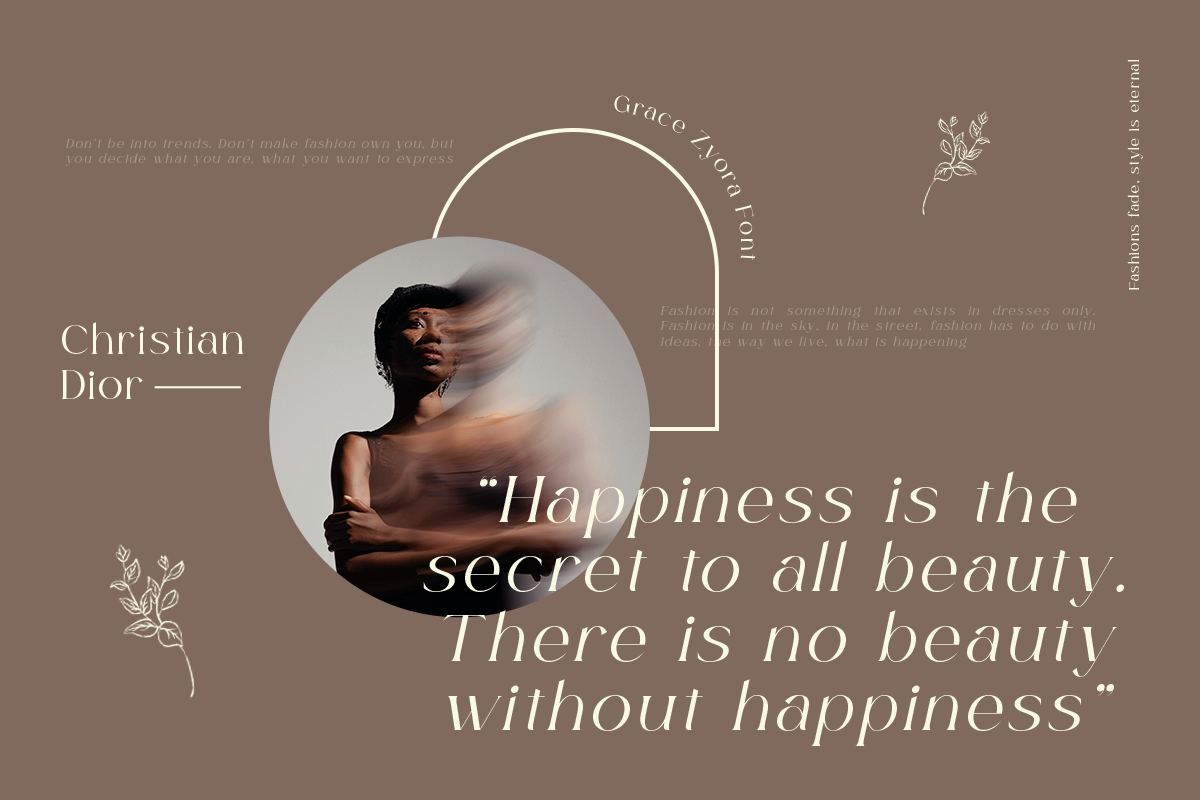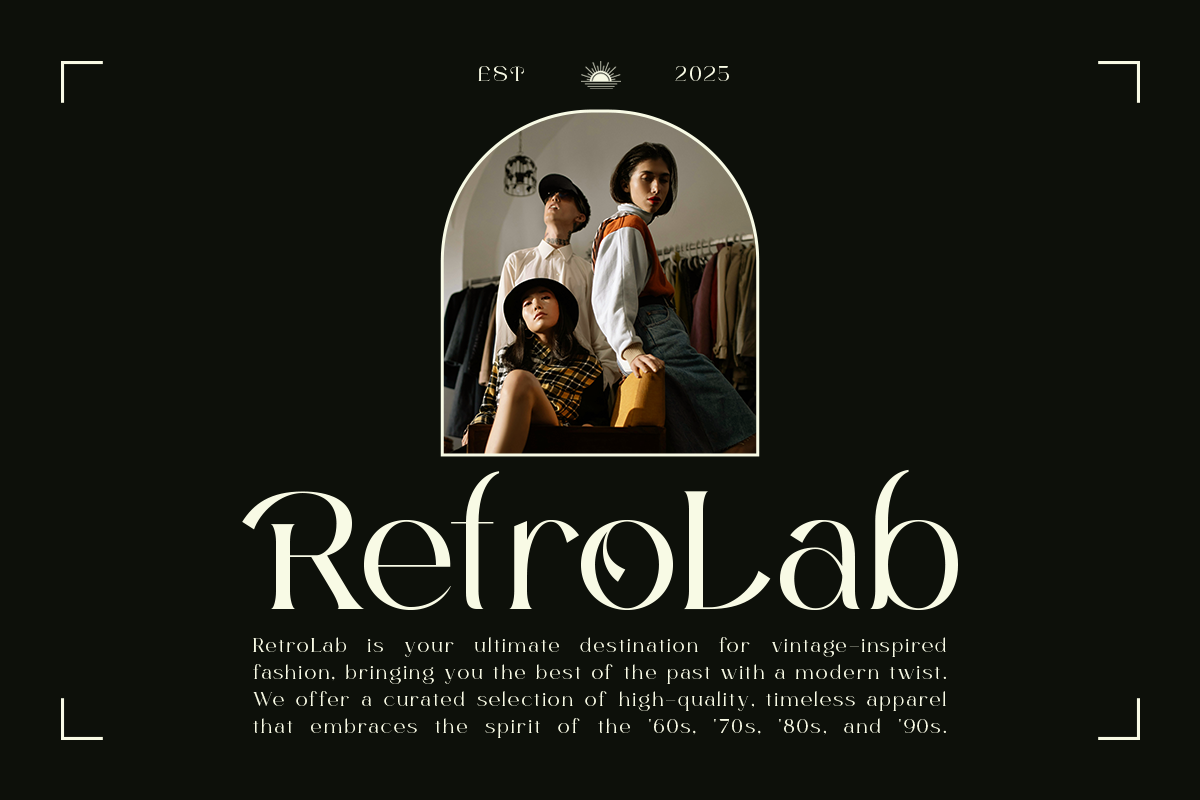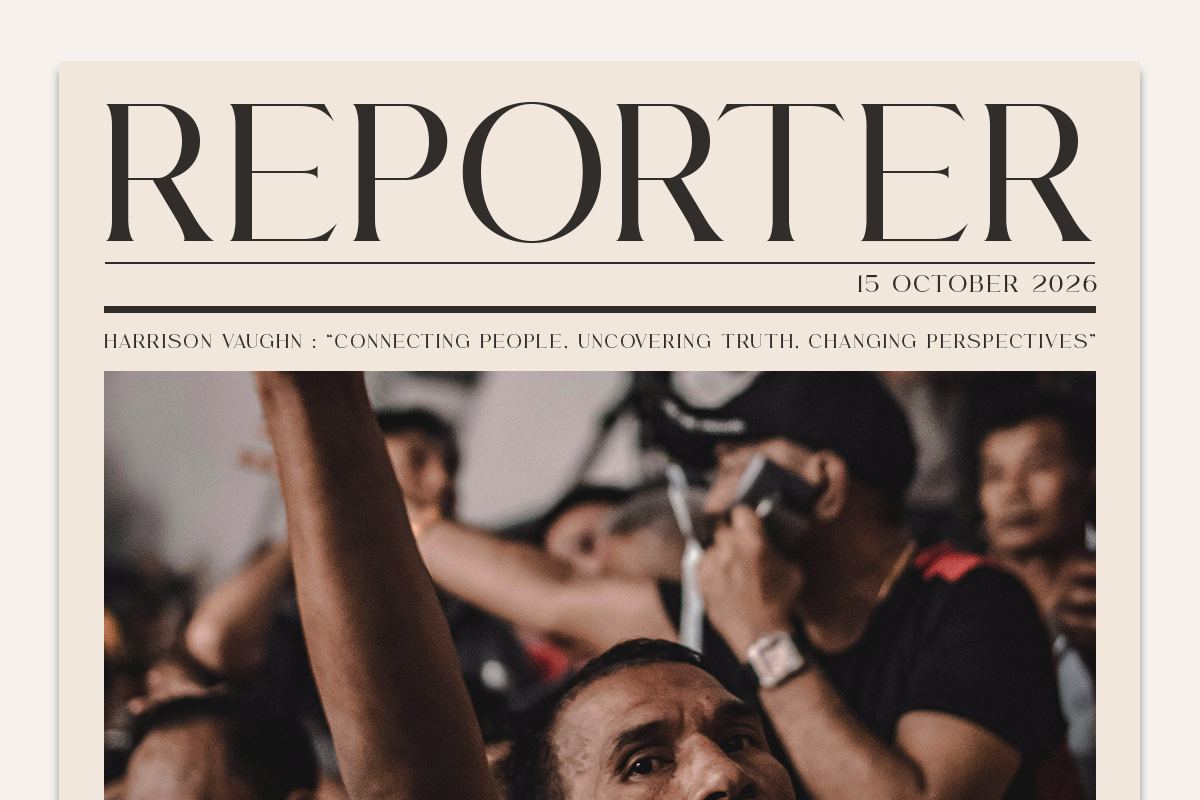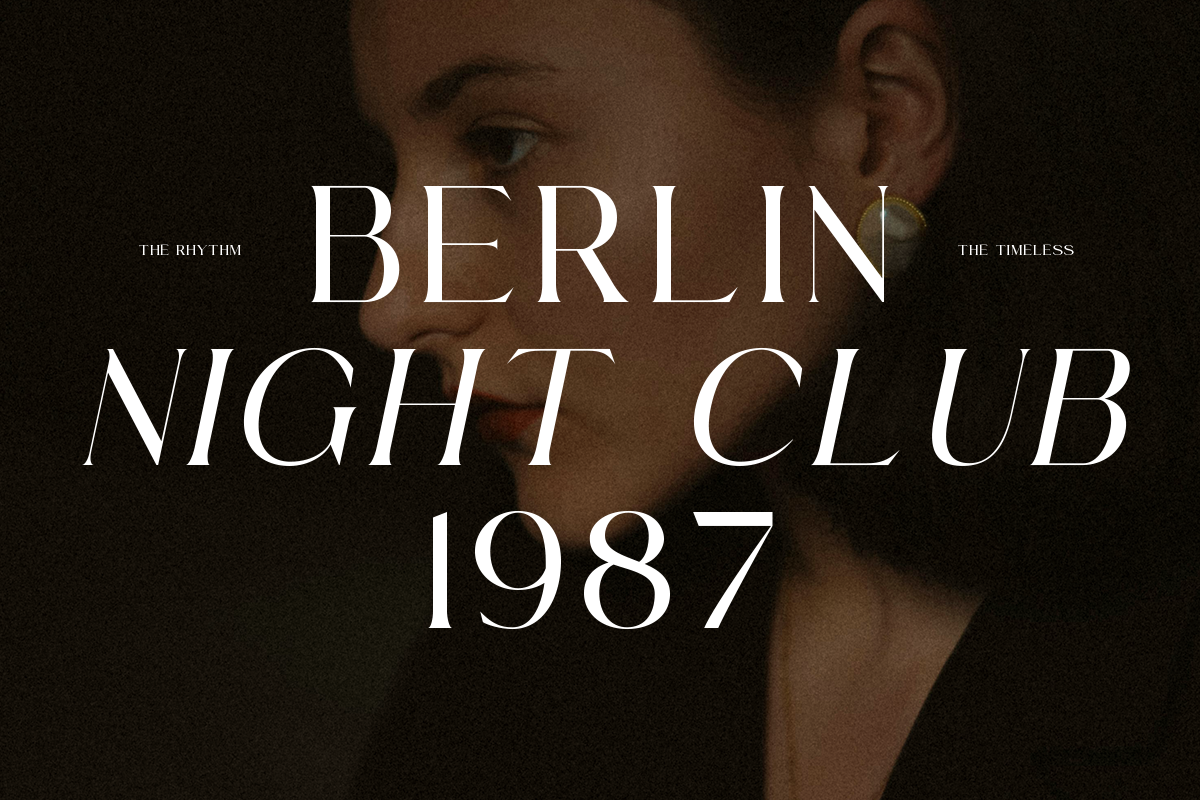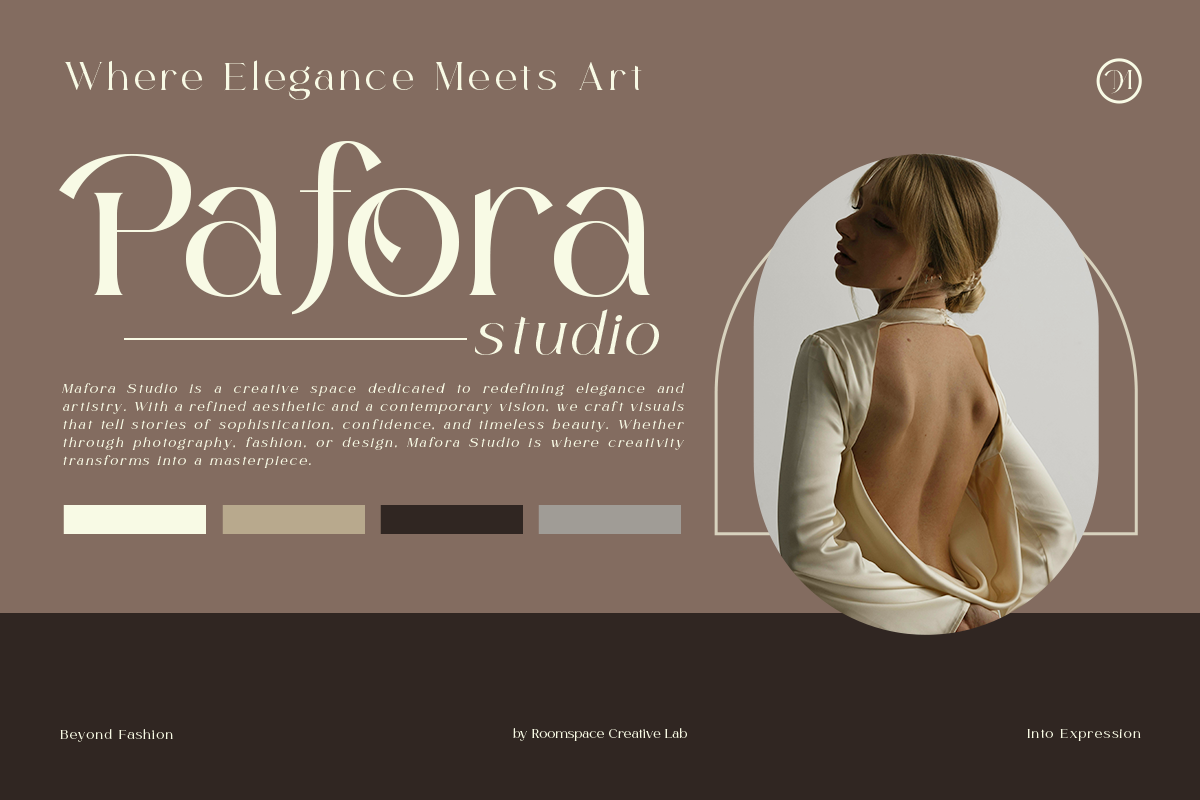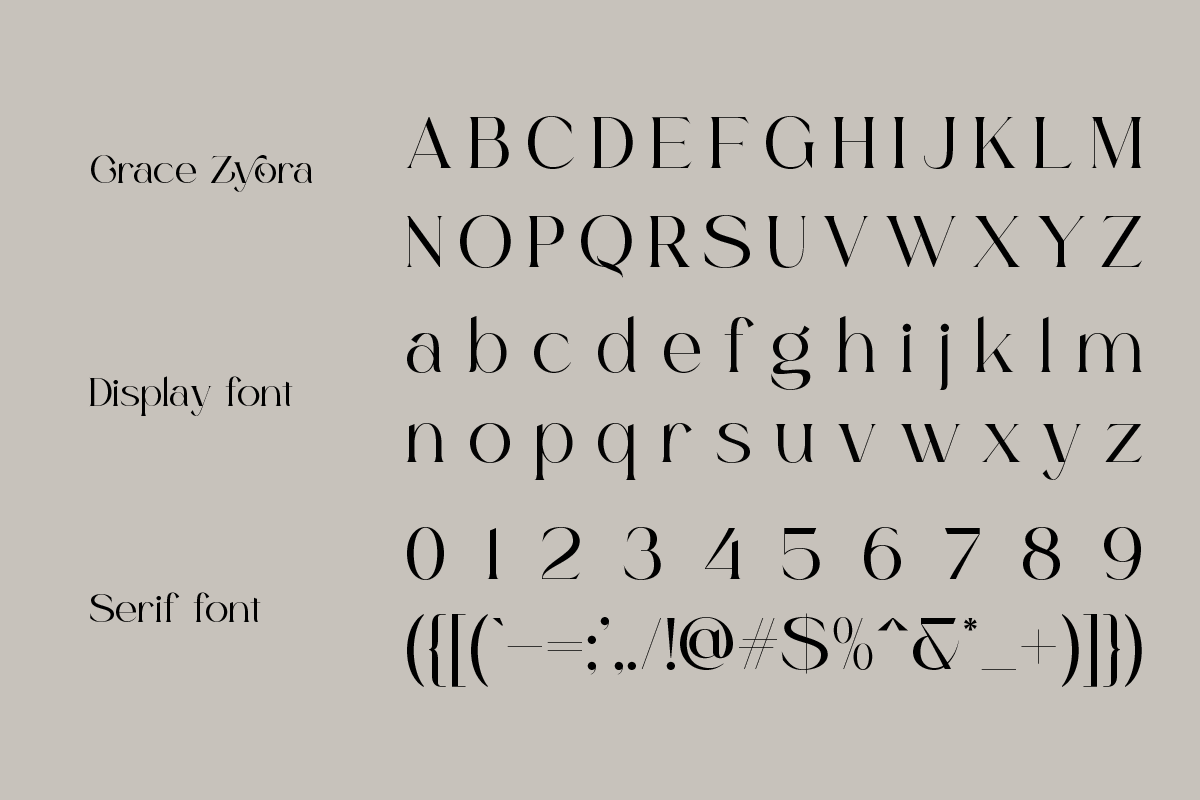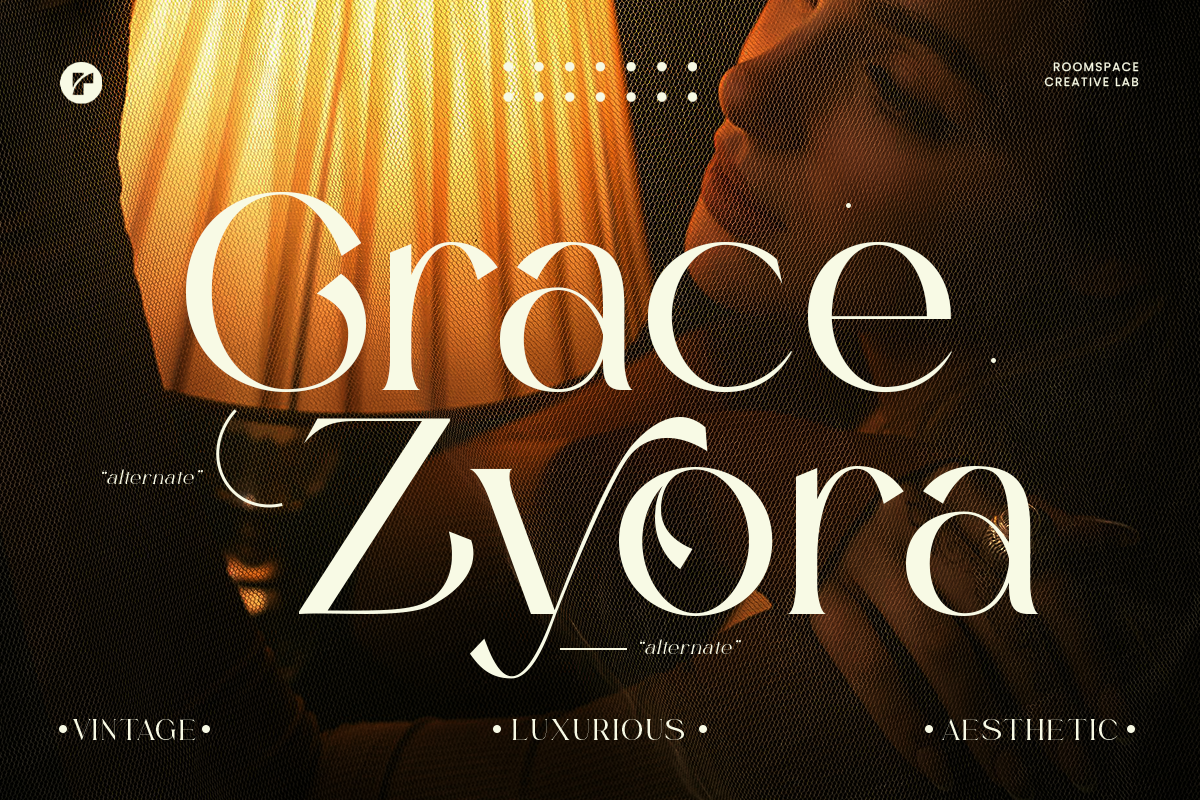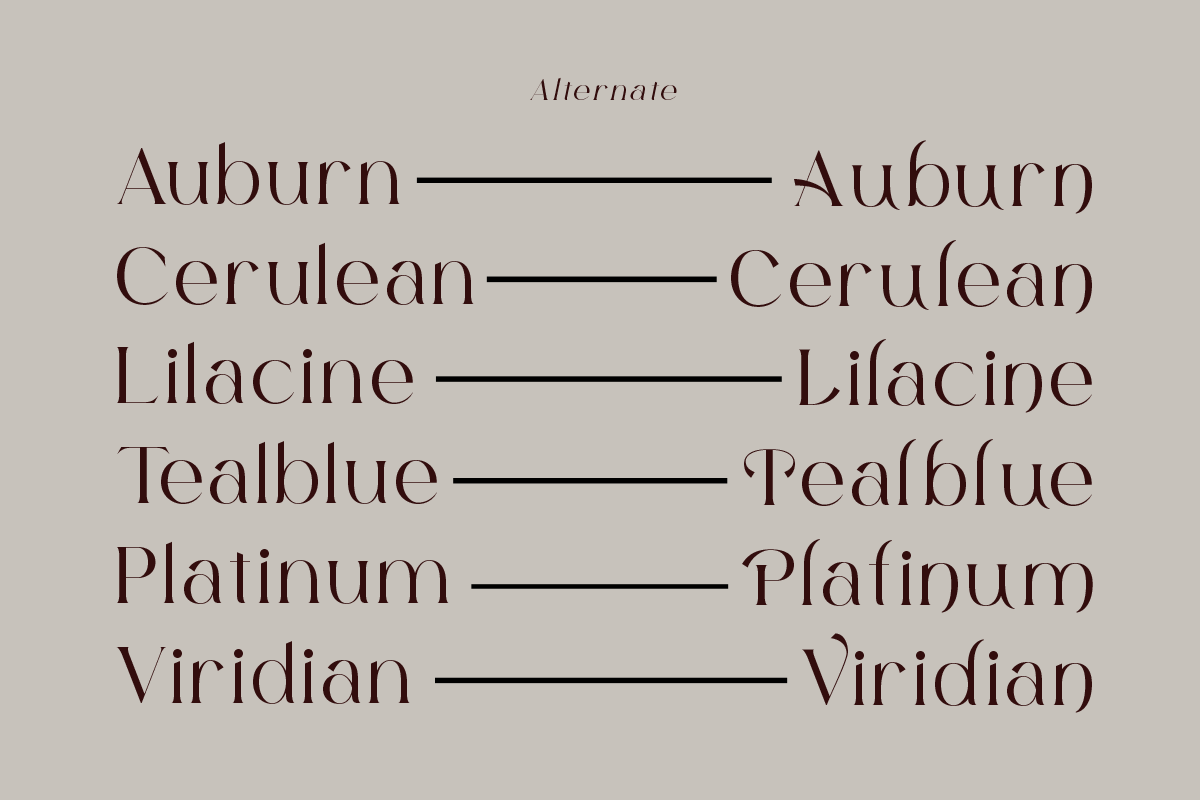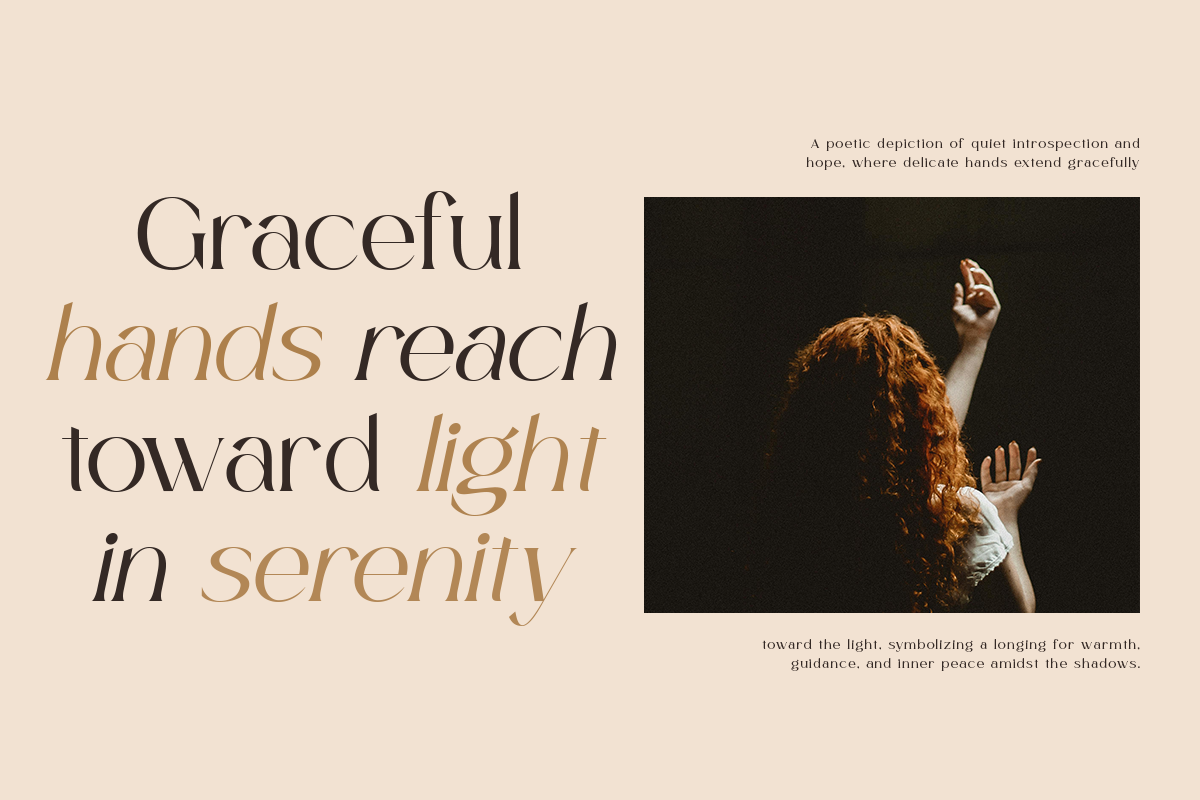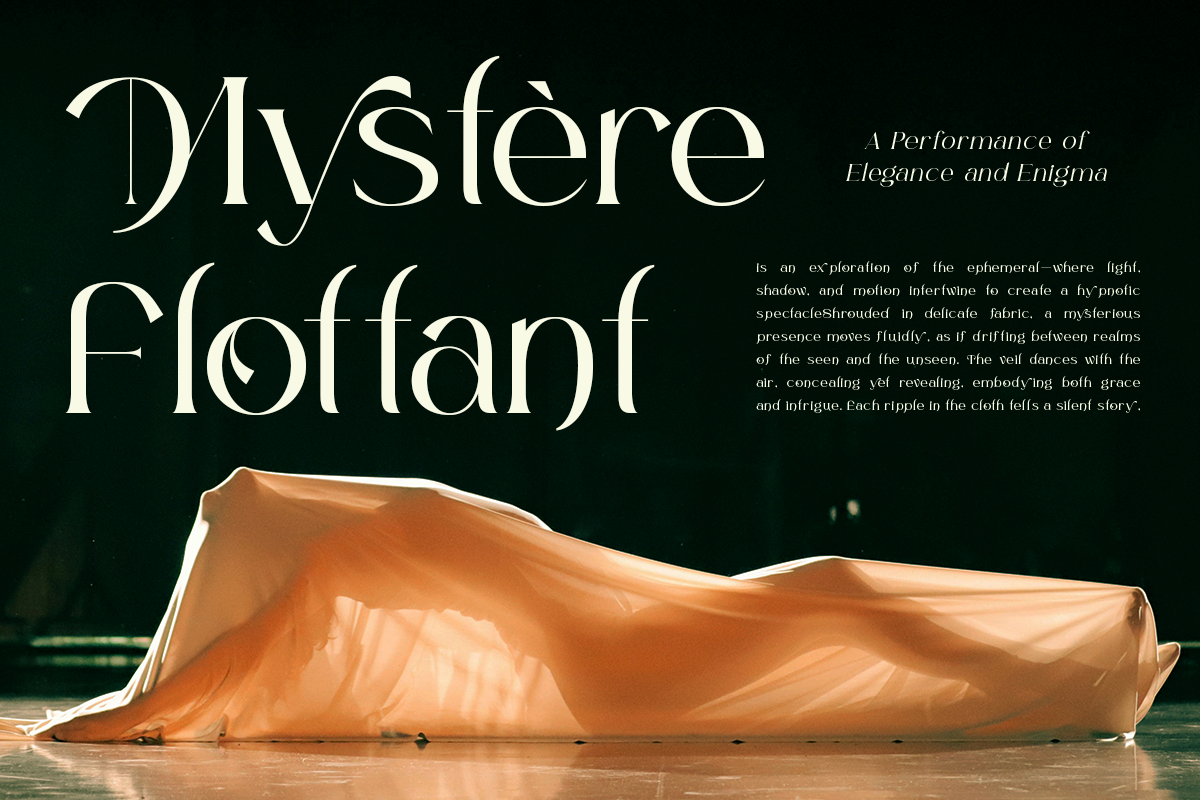
Grace Zyora - Luxury Modern Font
Grace Zyora Inspired by the perfect blend of vintage sophistication and modern edge, this typeface was made to shine in luxury branding, editorial layouts, and bold logo designs, Pair it with minimal backdrops or layer it over bold visuals—either way, it’s bound to turn heads.
Its elegant curves and striking alternates bring a sense of refinement to every project. Whether you’re crafting a classic wedding invitation or building a high-end brand identity, Grace Zyora has the versatility to match your vision.